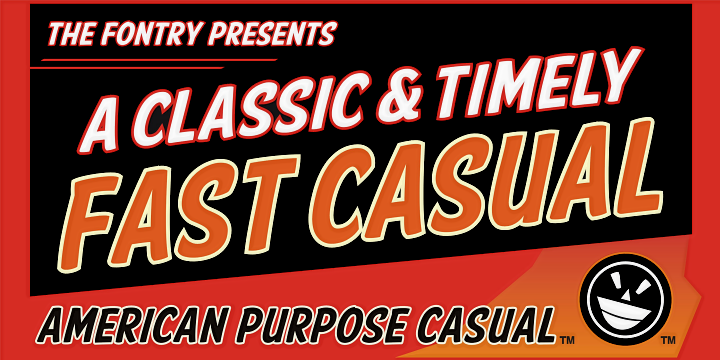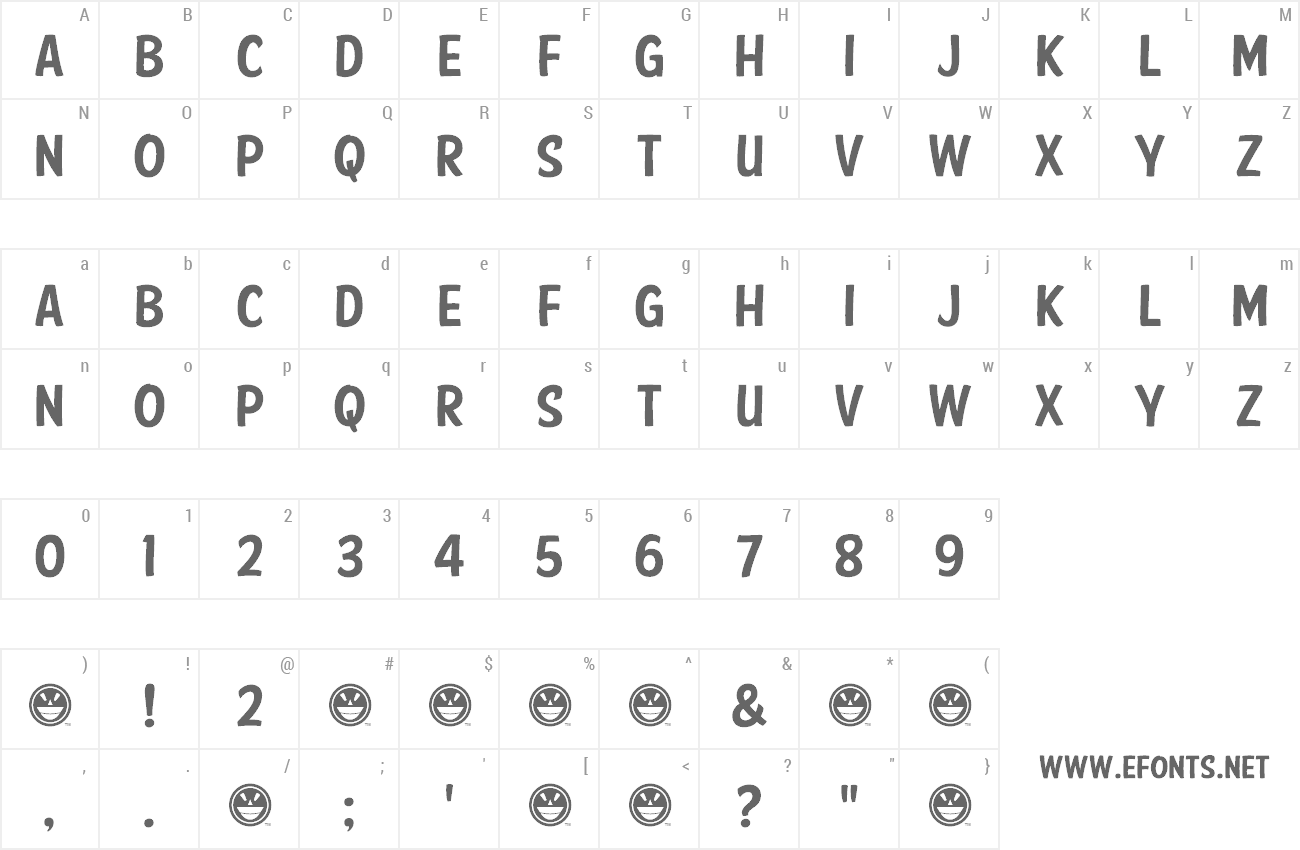
American Purpose Casual by Michael G. Adkins The captain America knows and loves best has a new sidekick. Two actually. You can't go through life all rigid and uptight. You need to relax. Find some casual time. Or lean it hard right if you want to go FAST! The casual version of the Fontry's American Purpose font has arrived to fulfill your design pleasures, whether you want to go slow and upright, or quickly leaning into the wind as you leap from rooftop to rooftop. Please visit our other downloads for American Purpose, American Patriot and American Captain. For commercial use please feel free to contact us for price, links and details at: the_fontry@yahoo.com or visit the Fontry website http://www.thefontry.com/ |